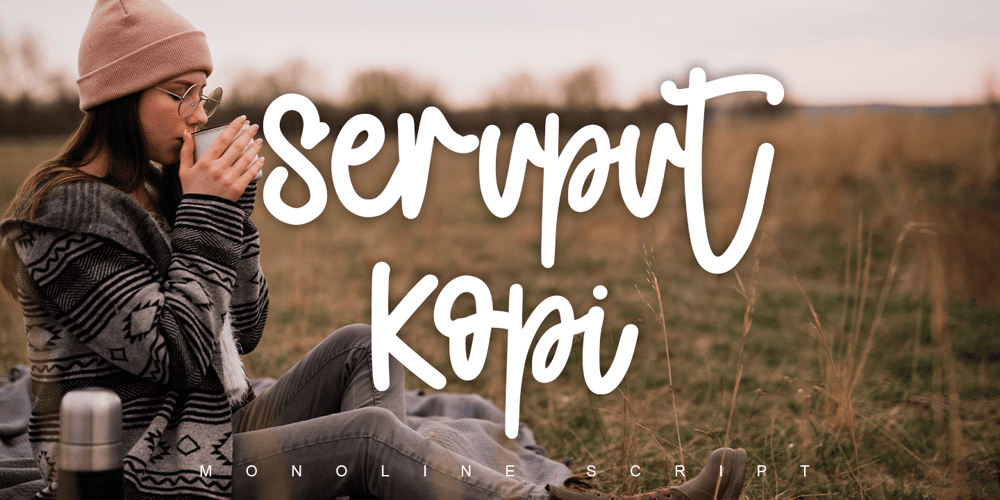
Seruput Kopi Font Family was designed by Thomas Aradea and published by Letterara. Seruput Kopi contains 1 styles and family package options. Seruput Kopi is a beautiful monoline script font. It is a beautiful combination of timeless elegance and authentic calligraphy. It features an incredibly classic style, while still keeping a friendly feel. Seruput Kopi is the perfect font for making original and outstanding designs. This font is PUA encoded which means you can access all of the glyphs with ease!